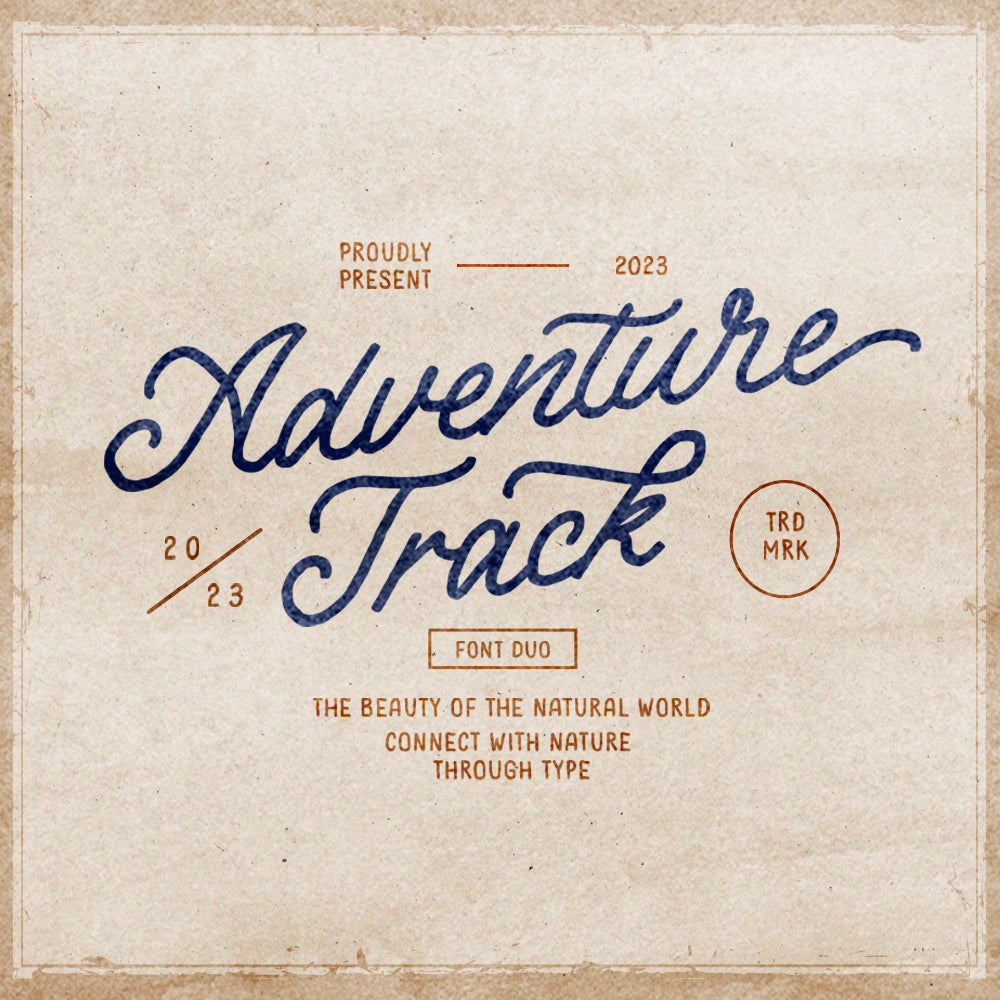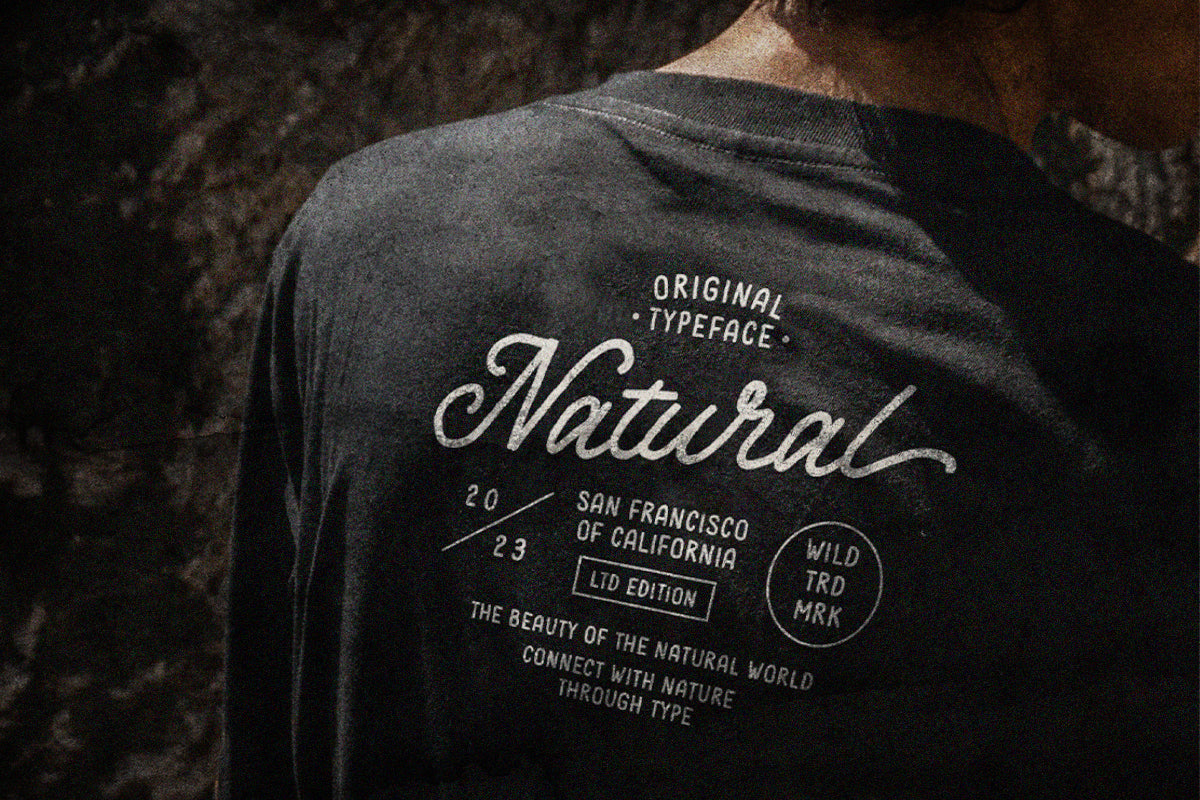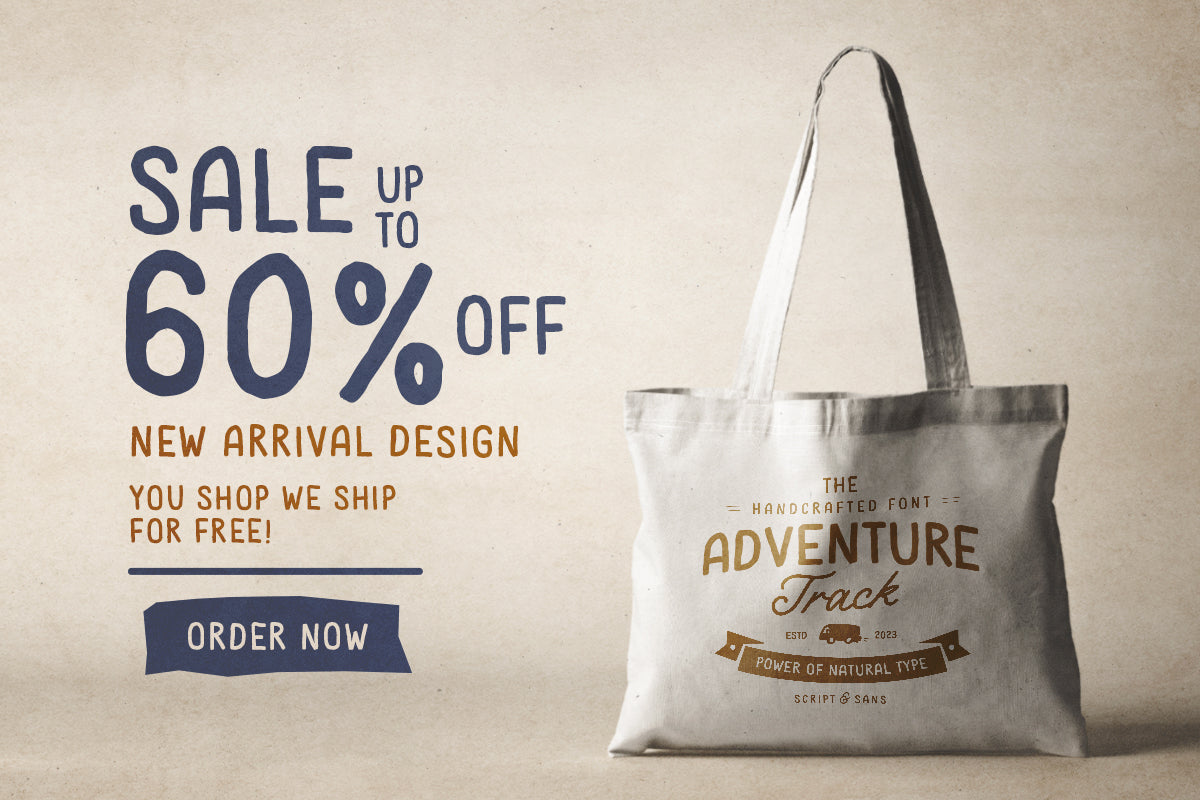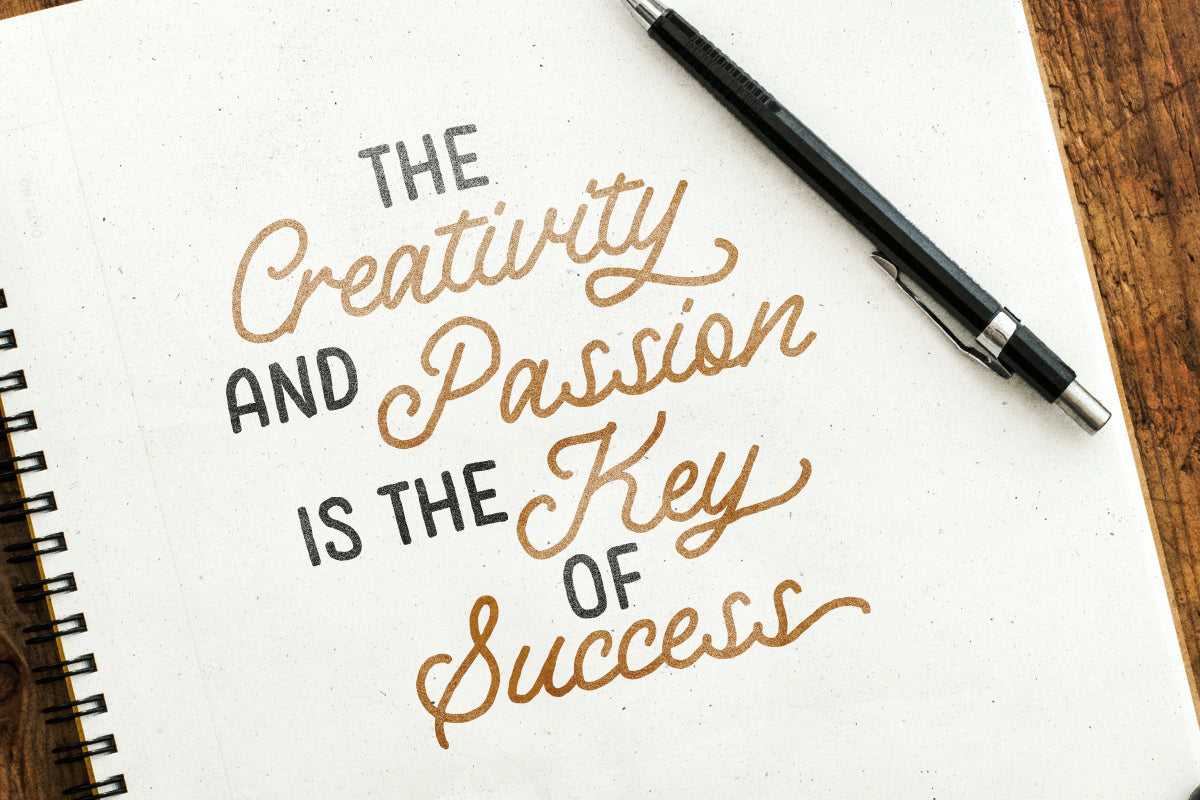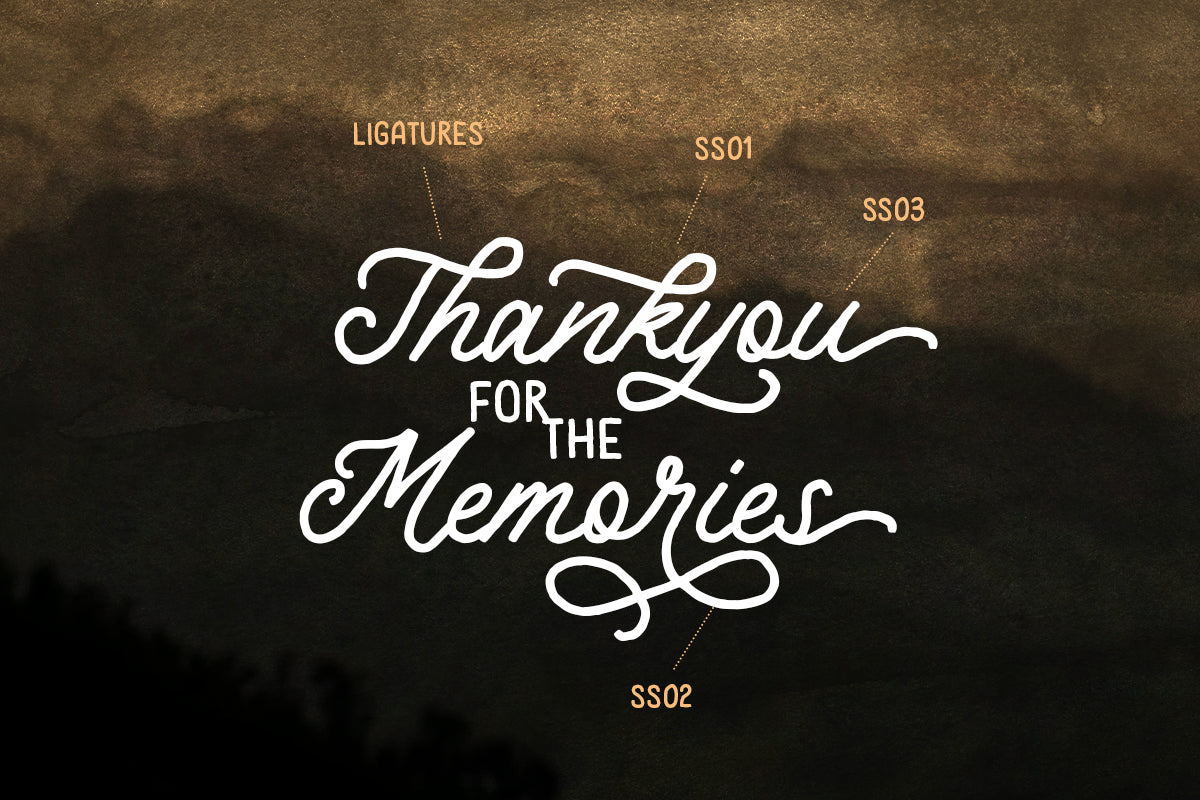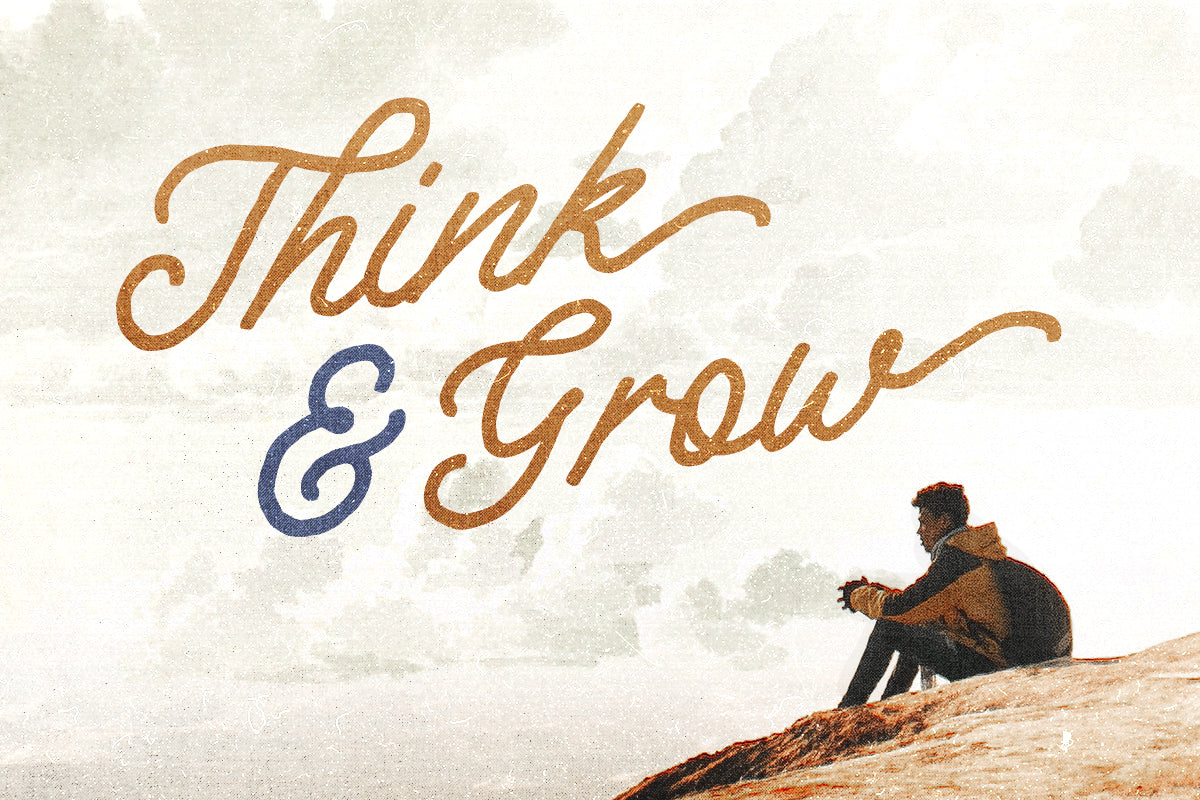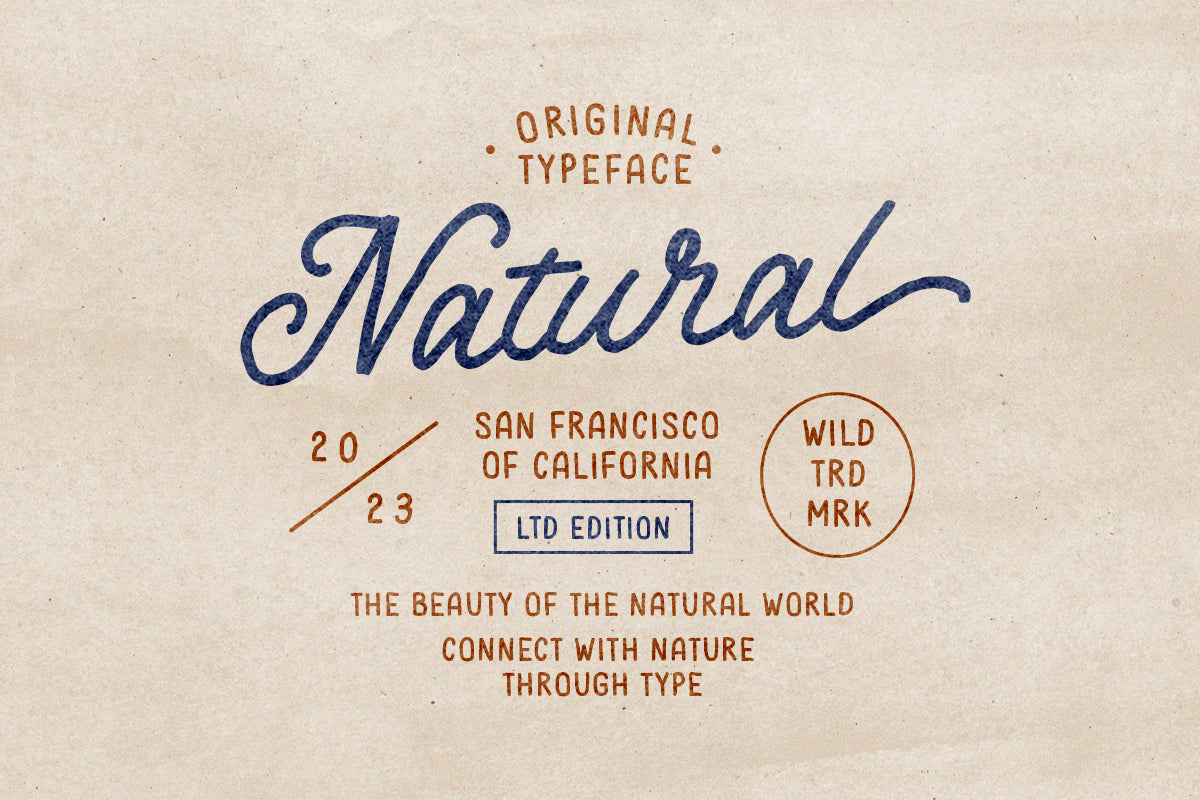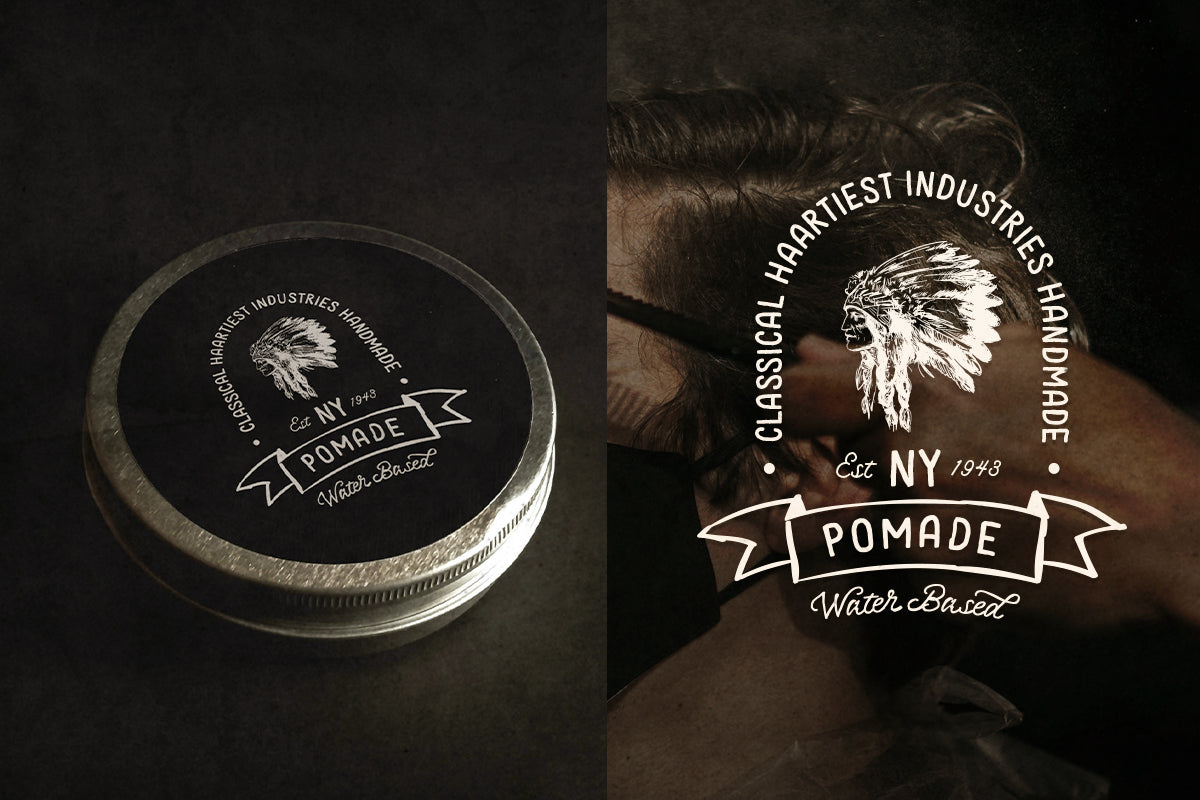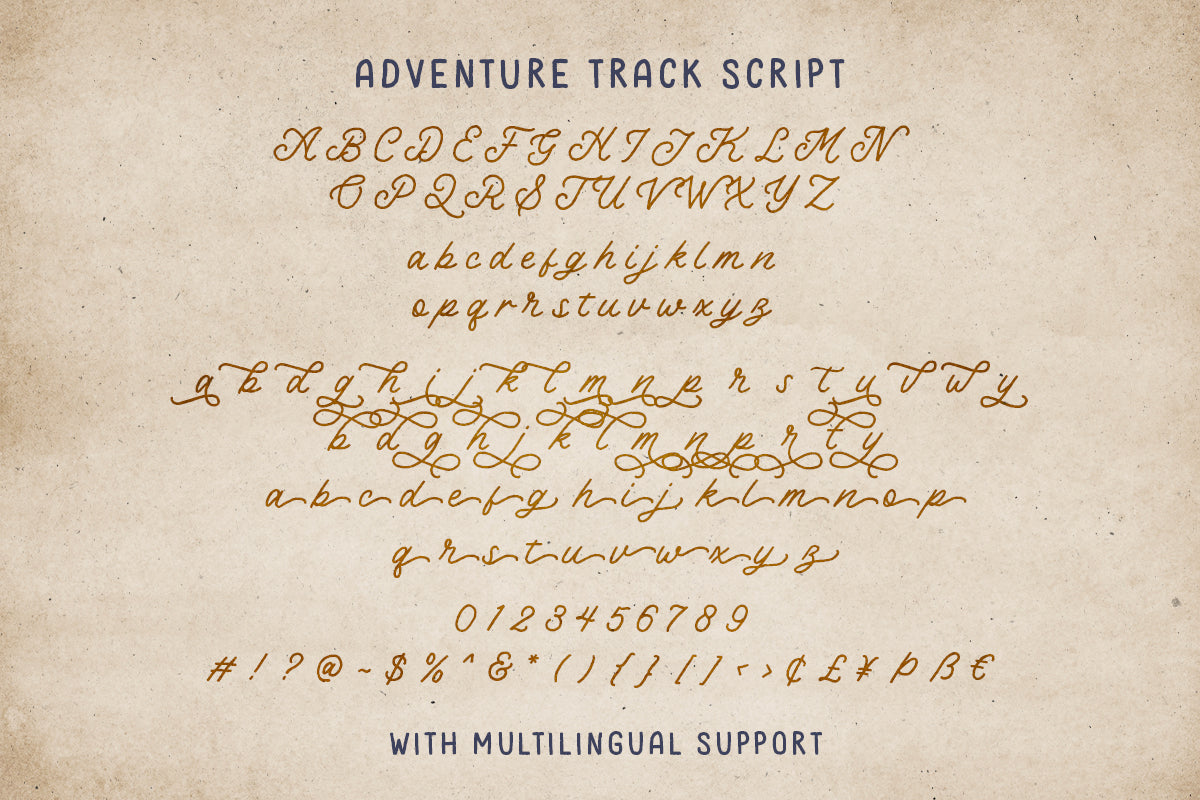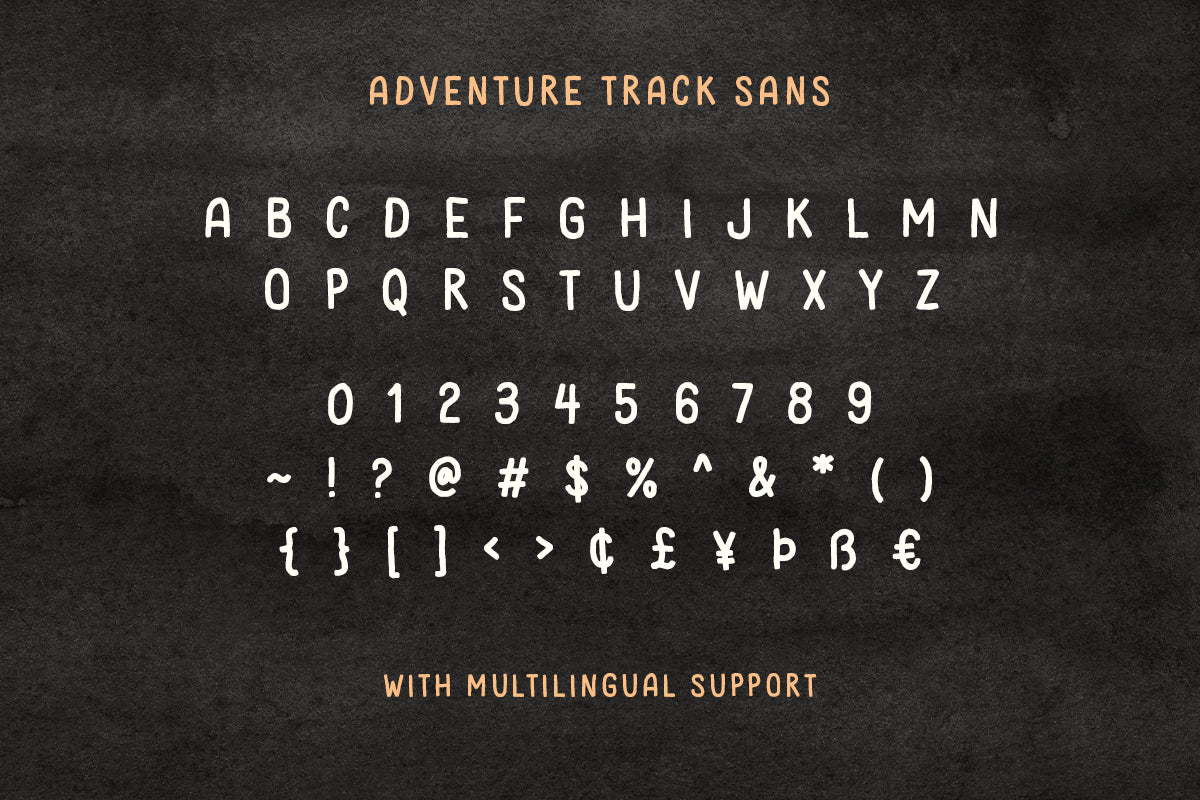
Adventure Track - Organic Font Duo
Adventure Track is a handmade monoline font duo that contains Script and Sans Serif. With this combination, you can easily make logotype or badge for your outdoor or adventure logo. It's also great for quotes. You can use this font duo for any purposes that need natural and handmade looks! Adventure Track also support multi language!